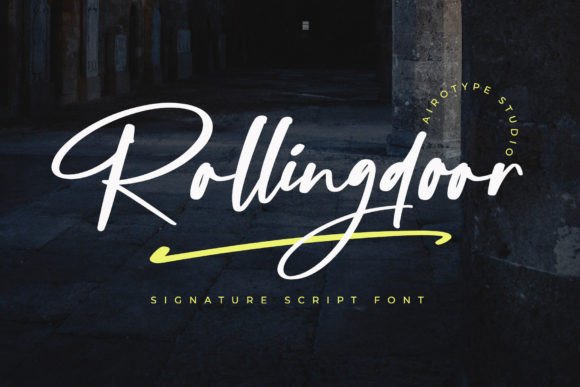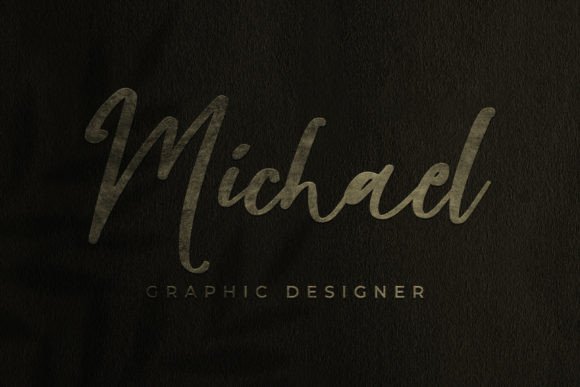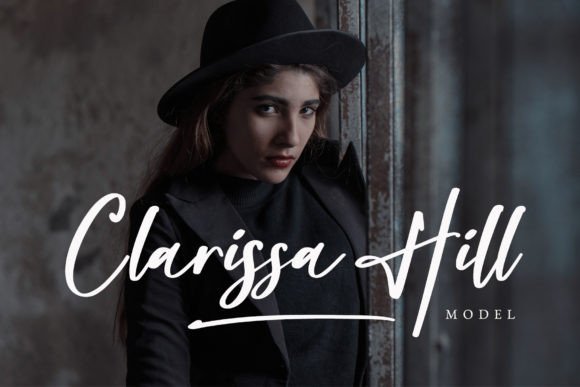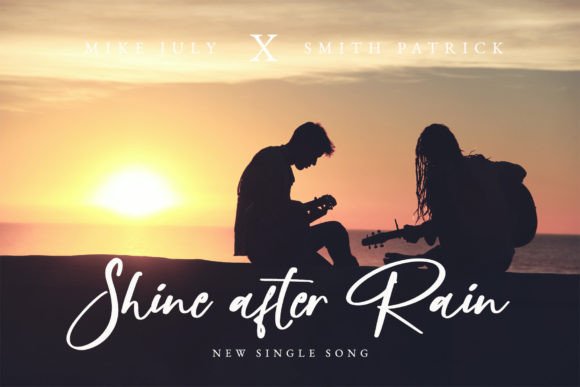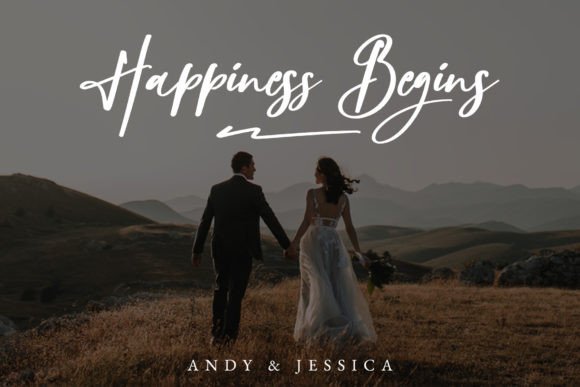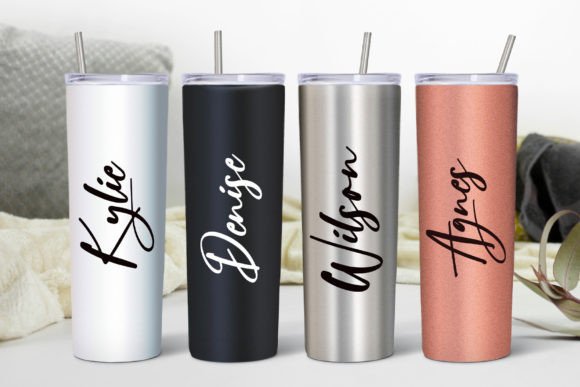
Introduction to Rolling Door Font
Rolling door is bouncy handwritten signature font.
It is simple, elegant, and fancy Rolling door is the perfect font for many designs with a handwritten touch, such as weddings, invitations, stickers, sublimation, cards, t-shirt design, farmhouse design, and others.
Rolling Door Font offers exceptional quality and versatility, making it a valuable addition to your design toolkit. Whether you’re creating for personal projects or commercial use, Rolling Door Font delivers professional results.